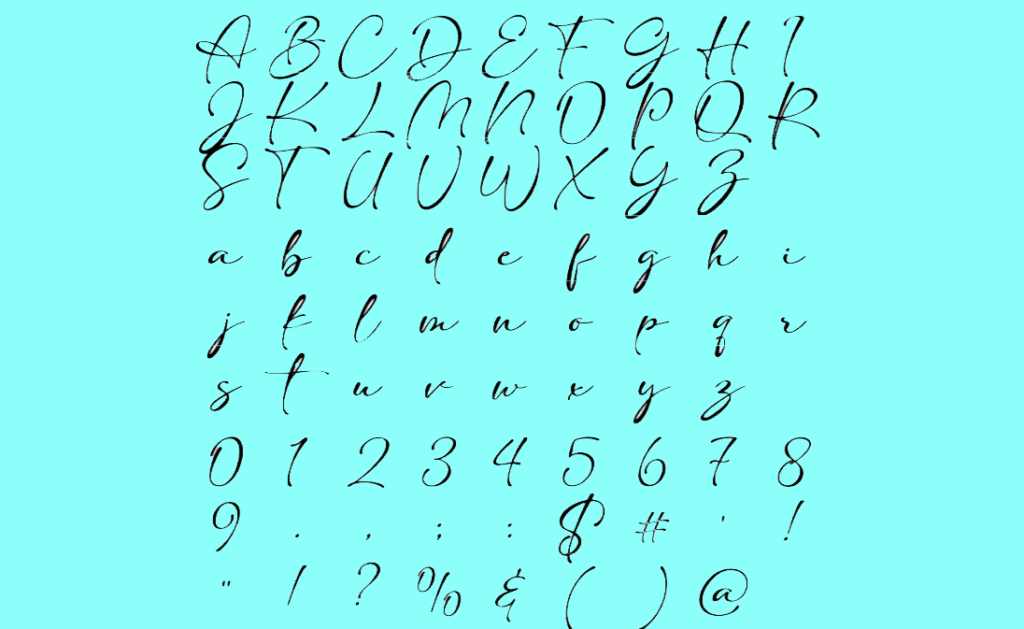
Adelia Font: Introduction
The art of typography reaches its peak through the unique artistic qualities of the Adelia font. Used for wedding invitation design alongside boutique branding and Instagram composition, Adelia provides an elegant, artisanal design element that instantly enhances every project. The uniqueness of Adelia lies in where exactly it came from. Designers should focus on what makes Adelia stand out because of which applications it performs best.
Overview of the Adelia Font
The handwritten script font Adelia presents itself with beautiful aesthetics and elegant features along with female charm and personal character. People recognize Adelia for its brushstroke movement, natural connection of letters and its classic appeal. This font finds its place in design work needing either stylish romantic elements or natural handmade looks.
This font is often categorized under:
- Handwritten fonts
- Script typefaces
- Calligraphy-style fonts
Adelia brings an organic, human feel to digital design—perfect for creative professionals who want to infuse their work with warmth and personality.
History and Origin of the Adelia Font
Artimasa Studio based in Indonesia operates as a leading type foundry which developed the Adelia font. Artimasa Studio stands known for its fashionable retro font collection that combines computer precise typefaces with personally drawn strokes. The Artimasa Studio made this font part of their new script font collection which serves modern and vintage design styles.
Analysts immediately took notice of Adelia because it brought numerous options to the table. The design could be used effectively in both rural signages alongside elegant branding projects.
Key Historical Highlights:
- Released by Artimasa Studio in the mid-2010s
- Frequently used in lifestyle, fashion, and wedding-related branding
Key Features of the Adelia Font
The appearance of Adelia is outstanding because the system combines both aesthetics and functional elements and flexible options with its design features. Adelia offers the following key features among its main attributes:
1. Handwritten Authenticity
Adelia mimics the motion and pressure of real calligraphy. Each letter feels as if it were carefully inked with a brush pen—giving it an authentic, organic texture.
2. Elegant Curves and Swashes
From long-tailed uppercase letters to ornate lowercase loops, Adelia features decorative swashes that make headers and titles pop.
3. OpenType Features
It includes a range of ligatures and alternate characters—perfect for designers using programs like Adobe Illustrator or Photoshop.
4. Multilingual Support
Many versions of Adelia include support for extended Latin characters, allowing use in multiple languages.
5. Versatility
Despite being a decorative script, Adelia works well in both large display settings (logos, headers) and smaller accents (quotes, packaging tags).
Best Applications for the Adelia Font
Adelia’s charm lies in its handcrafted versatility, making it a go-to choice for a wide array of creative applications. Here are some ideal use cases:
Wedding & Event Design
From invitations and RSVP cards to signage and menus, Adelia’s romantic vibe makes it perfect for wedding stationery.
Branding & Packaging
Boutique brands, especially in fashion, cosmetics, or artisan foods, love Adelia for its bespoke and premium feel.
Social Media Graphics
Designers use Adelia to craft engaging Instagram quotes, Pinterest pins, and TikTok intros that look chic and stylish.
Greeting Cards & Printables
Ideal for birthdays, holidays, and personal notes—Adelia brings warmth and personality to any message.
YouTube & Content Creation
Title slides, thumbnails, and intro screens benefit from Adelia’s eye-catching flow.
Popular Projects That Use Adelia Font
Designers have used Adelia across various platforms to bring a soft and romantic aesthetic to life. Examples include:
- Handmade soap packaging for artisan brands
- Elegant logo designs for flower shops and bakeries
- Etsy stores with watercolor themes
- DIY wedding templates sold on marketplaces like Creative Market
- Influencer brand kits and Instagram story highlight covers
Adelia is particularly popular among female-led brands, lifestyle bloggers, and creative entrepreneurs who want to emphasize elegance and authenticity.
Conclusion
The Adelia font presents itself as a flawless combination of classic beauty with distinctive characteristics. The script font with its handmade appearance along with decorative enhancements uses widespread creative applications to become the designers’ preferred typeface for transmitting warmth while maintaining sophistication.
Your audience will be captivated at every letter through the aesthetic power that Adelia provides for luxury logo design and elegant event invites and small business branding requirements.